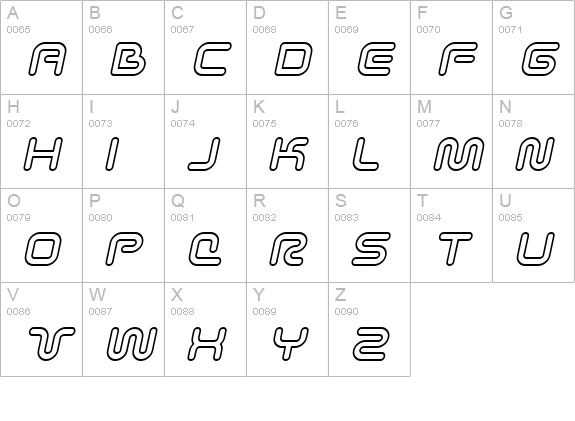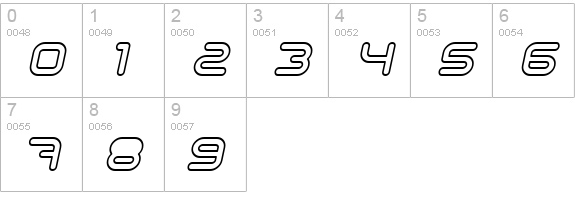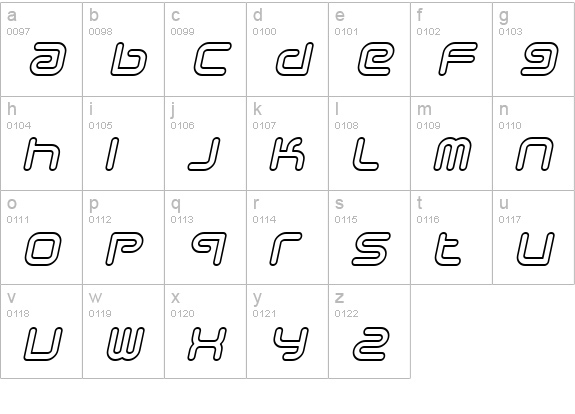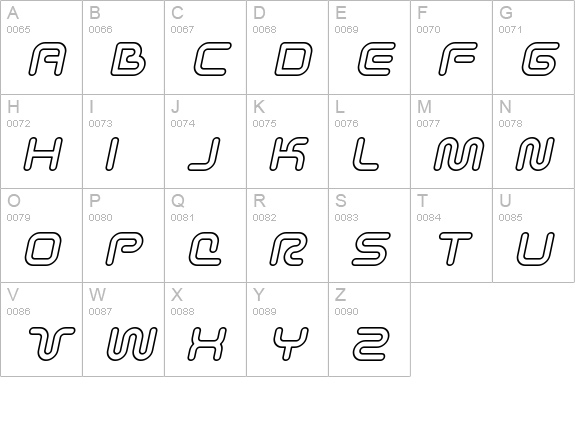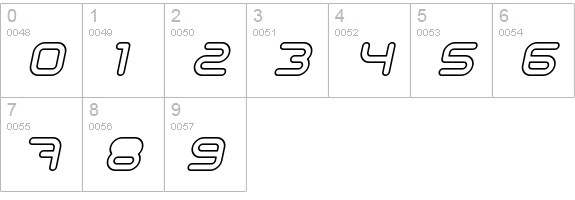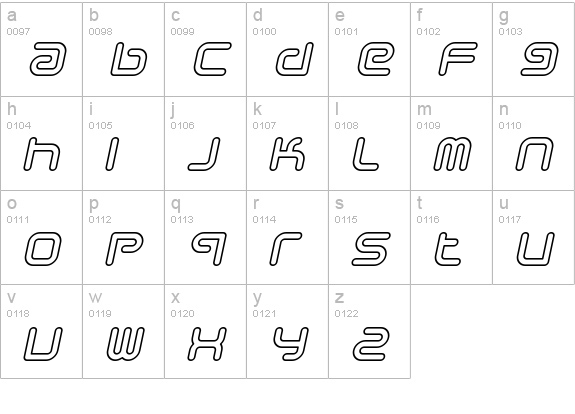
Sci Fied Outline Italic is a distinctive, italic variant in the Sci typeface family \xE2\x80\x94 well suited to design and typography projects.
Introducing the captivating and futuristic Sci Fied Outline Italic font – a typeface that seamlessly blends the essence of science fiction with an alluring italic design. This font is a visual representation of the boundless possibilities that lie within the realm of the unknown, evoking a sense of wonder and exploration with every letter. With its sleek and streamlined appearance, Sci Fied Outline Italic effortlessly transports your imagination to distant galaxies and unexplored dimensions. Its distinct italic style adds a touch of elegance and dynamism to your creative projects, making it the perfect choice for futuristic book covers, movie titles, posters, and more. But what truly sets Sci Fied Outline Italic apart is that it is freely available to download. Yes, you heard it right – this awe-inspiring font can be yours at absolutely no cost! Thanks to FontsMarket.com, you can easily access this font and unleash your creativity without any financial constraints. Whether you are a professional designer, an aspiring artist, or simply a sci-fi enthusiast, Sci Fied Outline Italic is a must-have addition to your font collection. Its versatility allows it to seamlessly complement a wide range of design concepts, enabling you to bring your visions to life with ease. So, why wait? Take advantage of this incredible opportunity to enhance your creative endeavors with the captivating Sci Fied Outline Italic font, freely available to download at FontsMarket.com. Unleash your imagination and embark on a journey to the unknown with this remarkable typeface by your side.